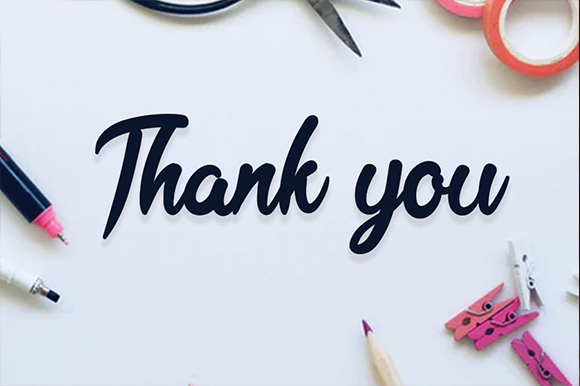
Introduction to Brush Creeping Font
As a designer, I still get that rush of excitement when a project starts to come together, and I stumble upon the perfect design resource to take it to the next level. It’s that ‘aha’ moment when all the elements align, and you know you’ve created something truly special. For me, that moment recently came when I discovered the Brush Creeping Font, a stunning pairing of a brush pen and pencil that brings any DIY project to life.
With its unique, endearing, and authentic look, the Brush Creeping Font is a game-changer for designers looking to add a personal touch to their creative projects. Its high-quality design makes it perfect for projects that require a transparent background or a free download, allowing you to easily integrate it into your designs.
Key Features of Brush Creeping Font
- High-quality design resource ideal for creative projects, offering a unique and artistic touch.
- Perfect for designers seeking a distinctive, hand-drawn aesthetic to elevate their creative projects, from logos and branding to typography and graphics.
Honest Review: Brush Creeping Font
I recently stumbled upon the Brush Creeping Font, a design resource that has both impressed and disappointed me in equal measure.
- ✨ The font is versatile and works well in a variety of contexts, from logos to social media graphics.
- ⚠️ The Brush Creeping Font is a bit too casual for more formal projects, so use it wisely.
- ⚠️ The font may not be suitable for small text, as the brush strokes can make it difficult to read.
Overall, I would say that the Brush Creeping Font is a solid design resource that is perfect for creative projects. While it has its limitations, it is a high-quality font that is worth checking out.
As a designer, I appreciate the transparent background option and the versatility of the font. However, I do wish it were a bit more formal for certain projects. If you’re looking for a fun and creative font for your next design project, the Brush Creeping Font is definitely worth considering.
Common Use Cases for Brush Creeping Font
Brush Creeping Font is perfect for use in creative projects, such as graphic design, digital art, and typography. It’s also great for use in branding and marketing materials, such as logos, business cards, and brochures.